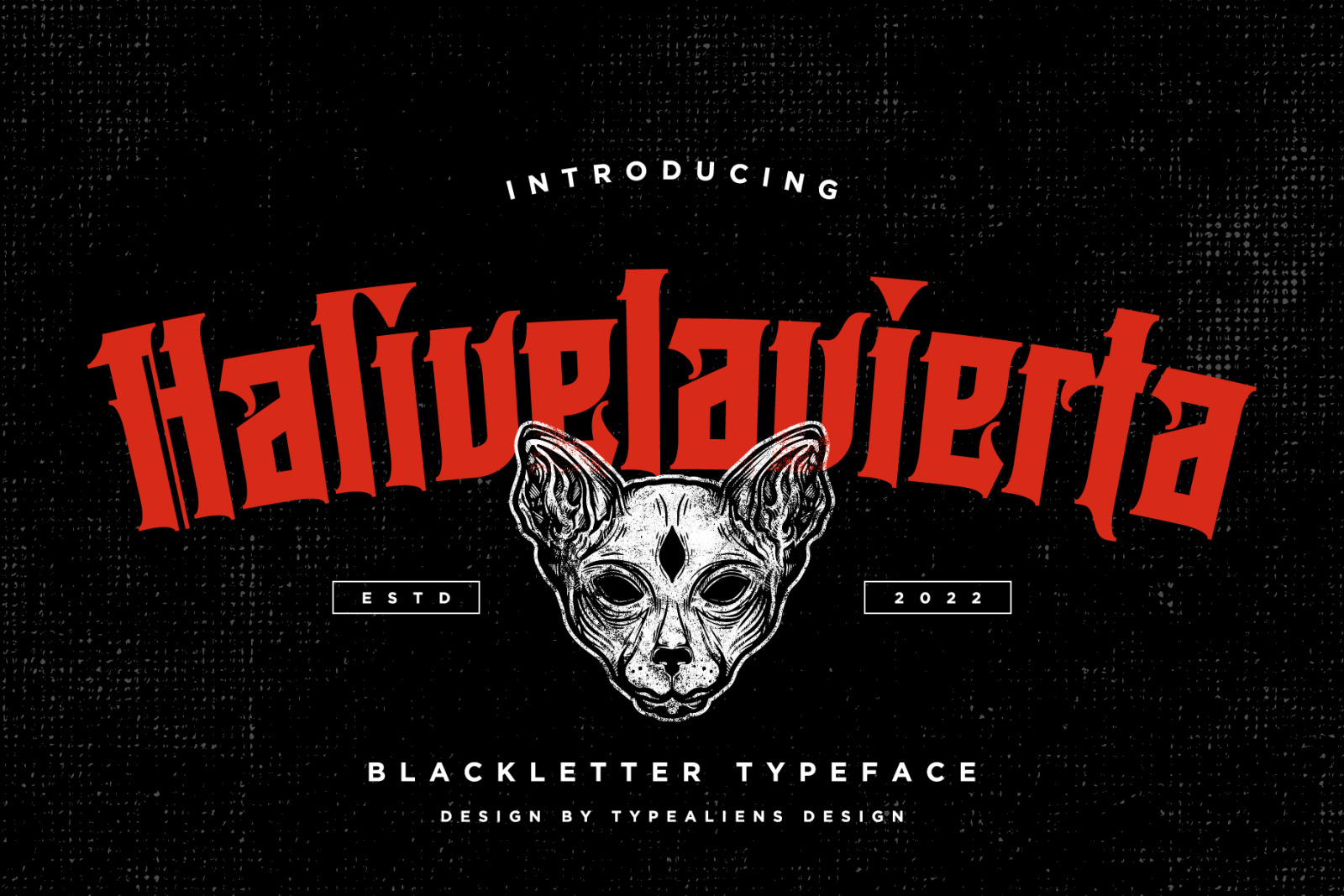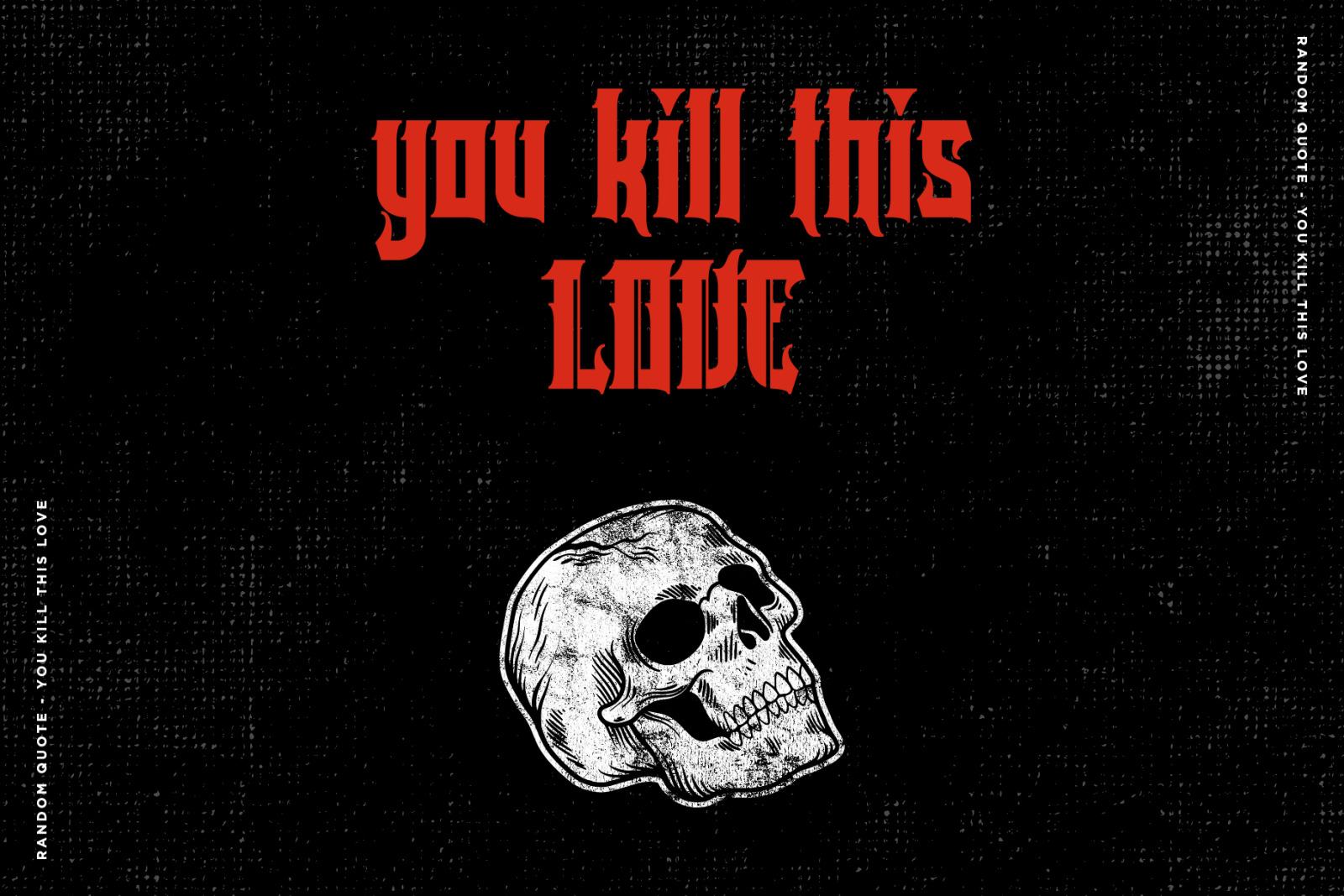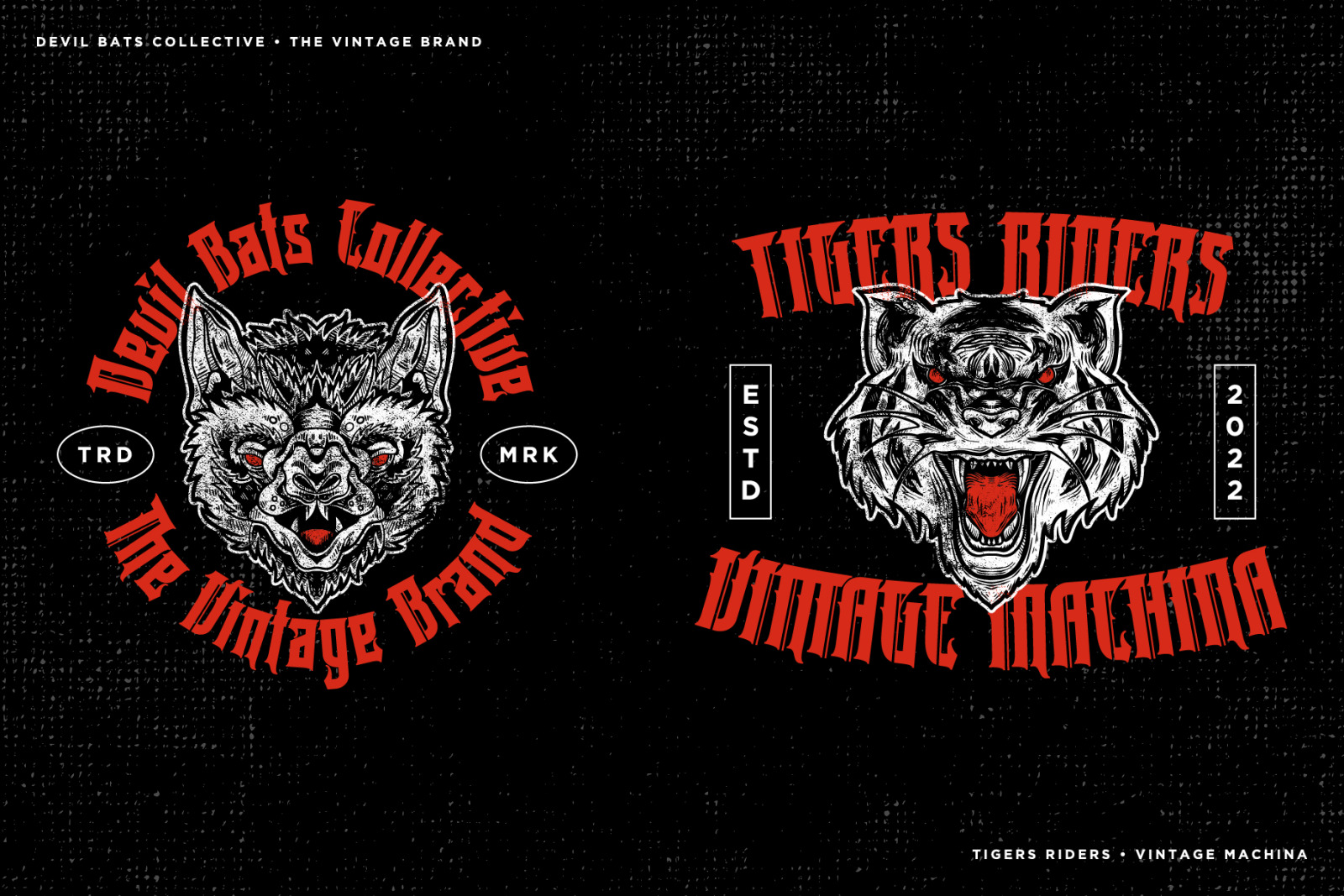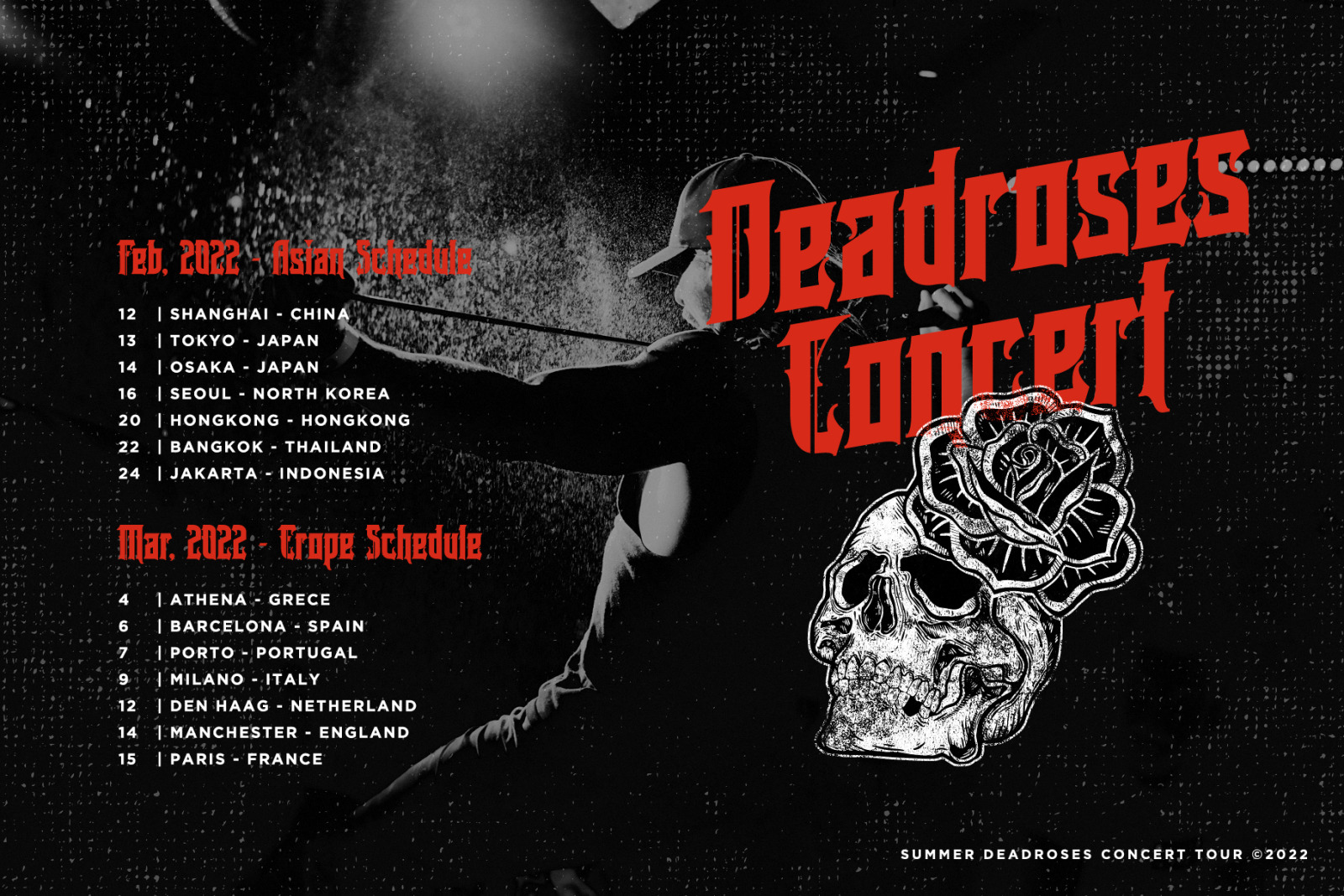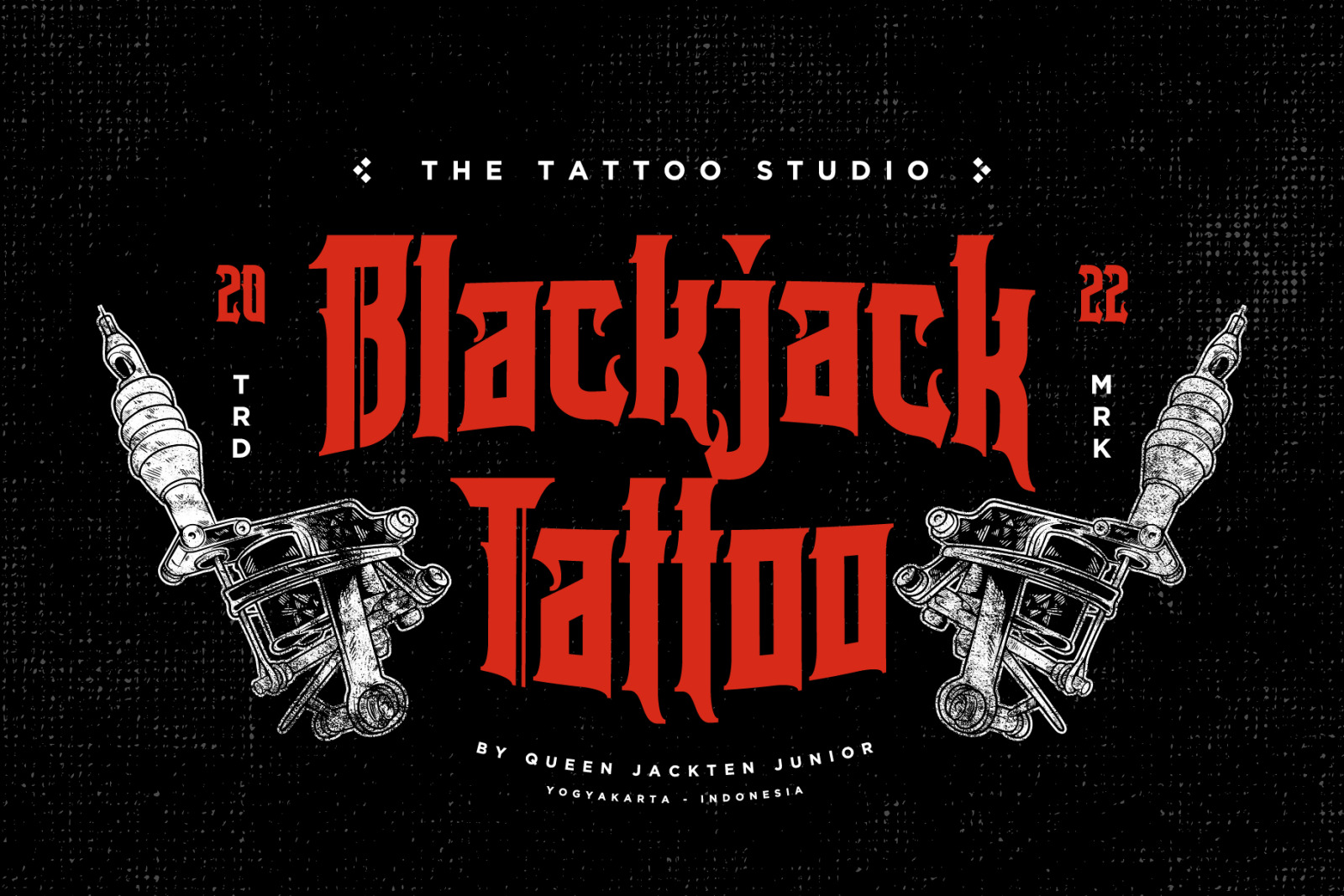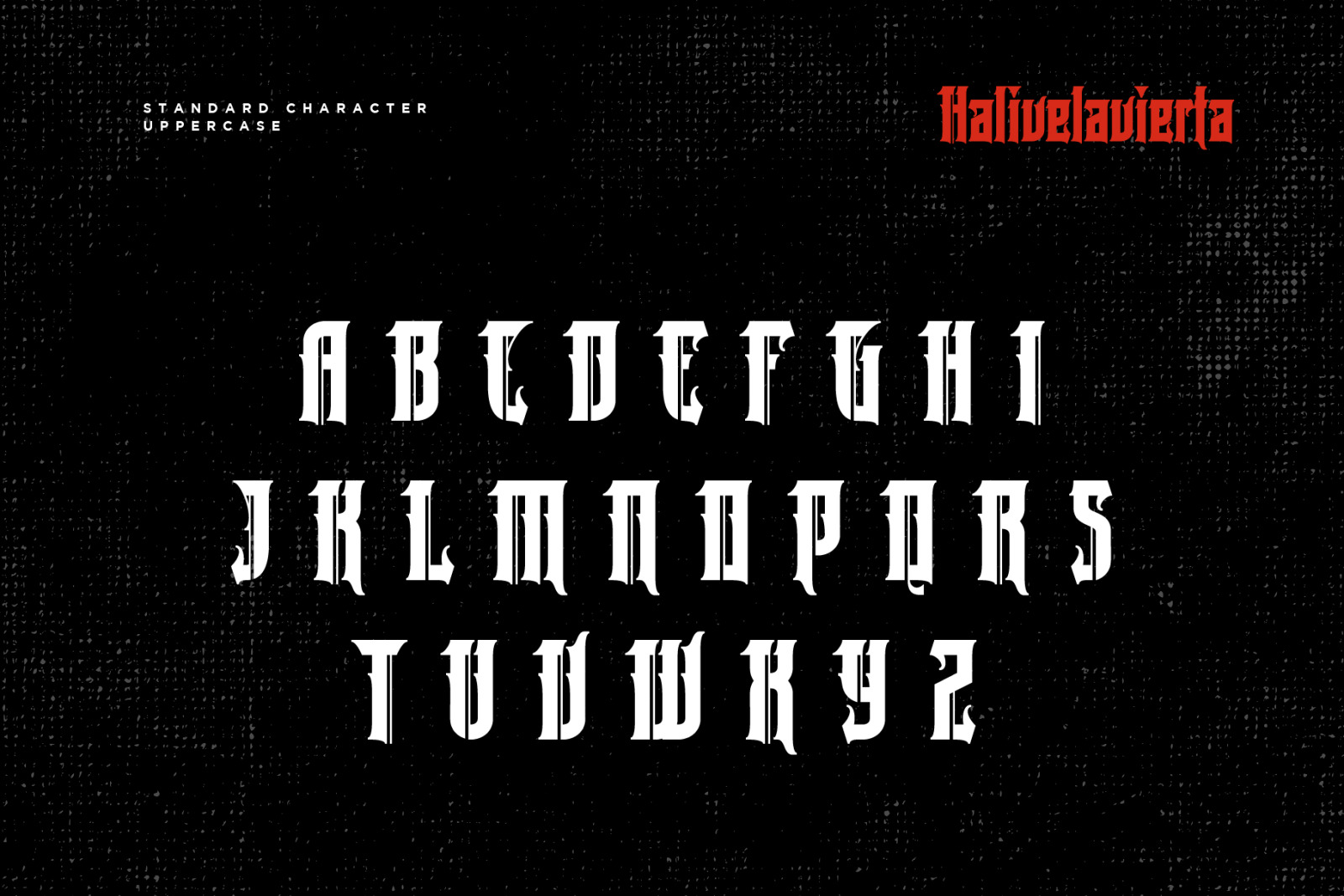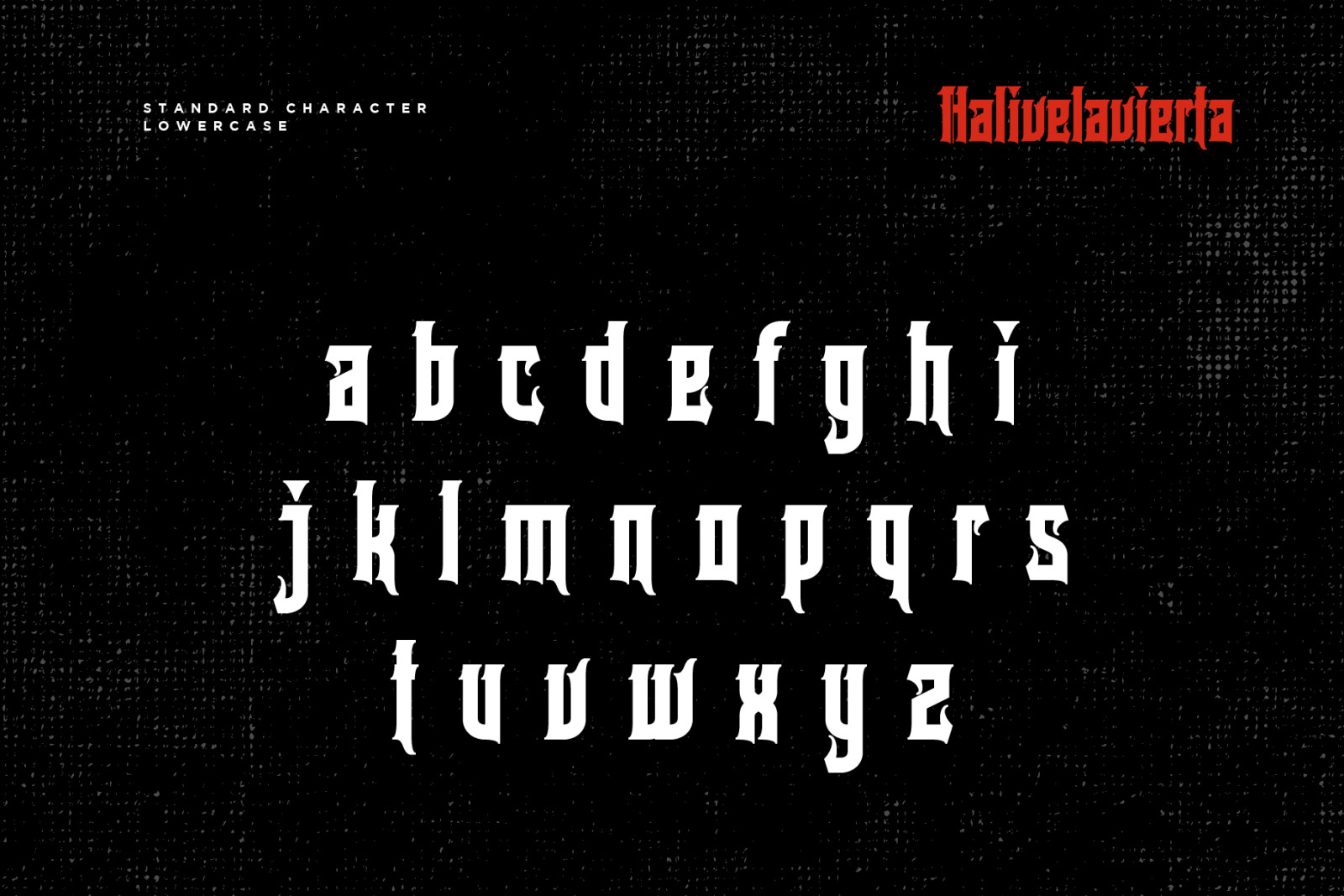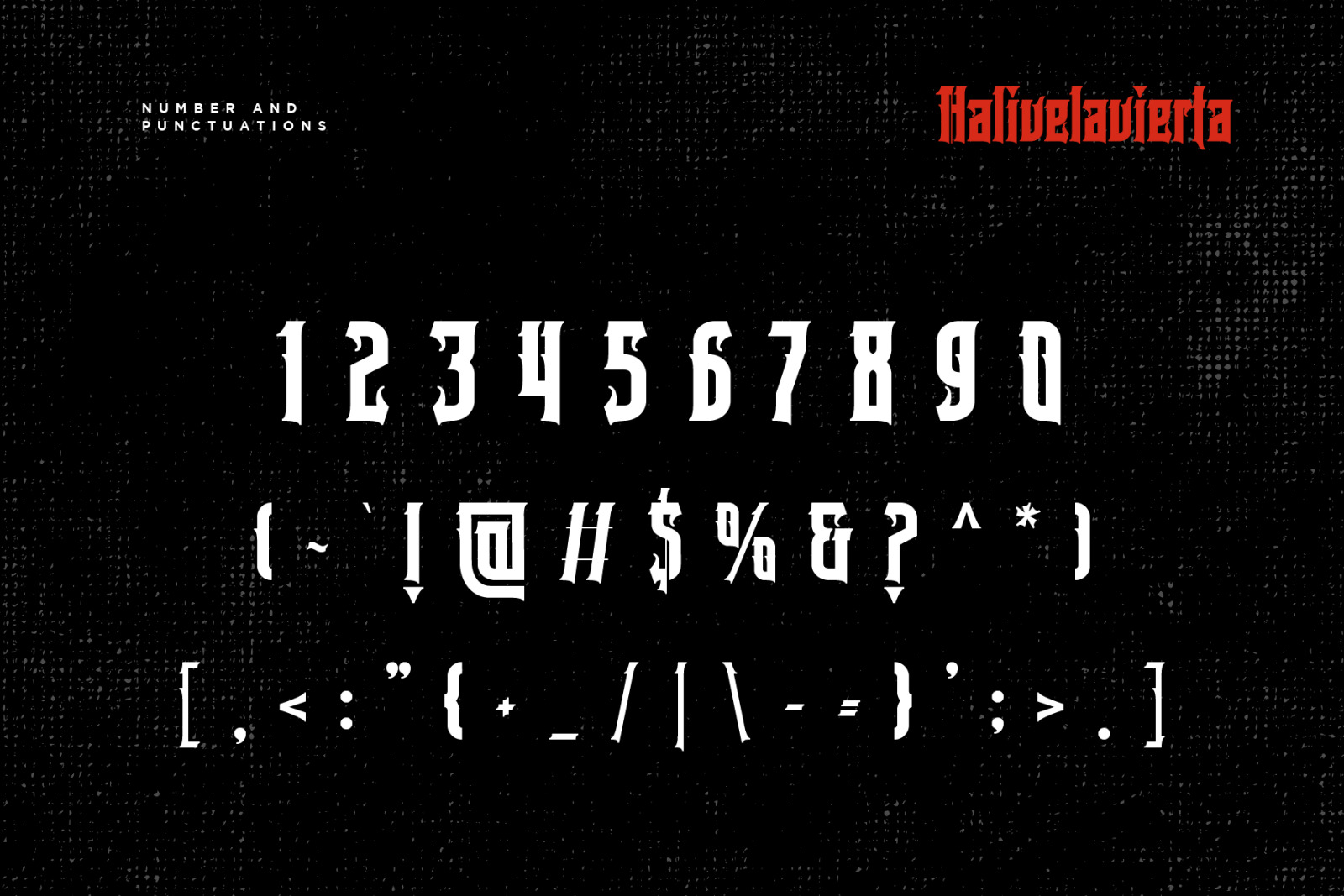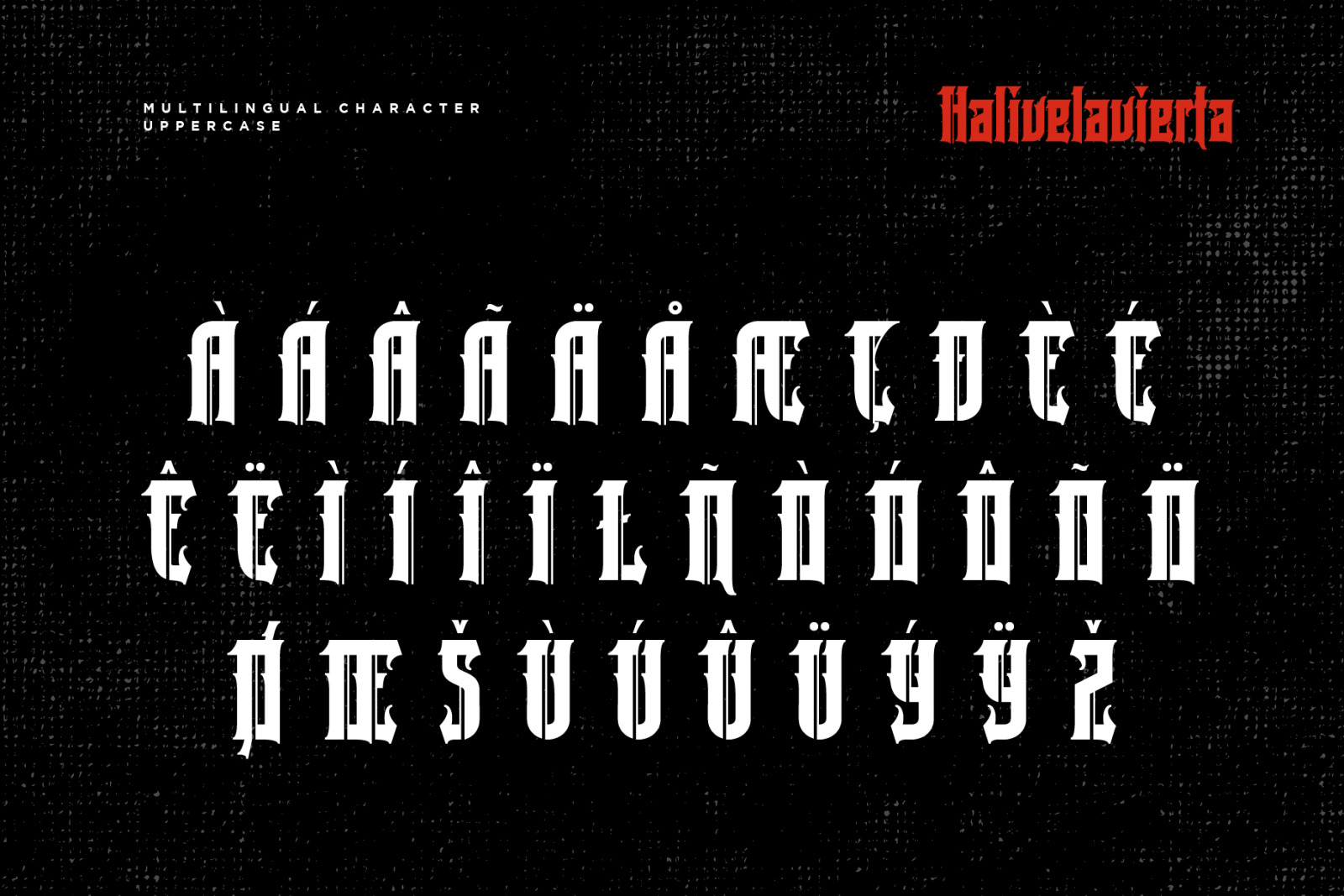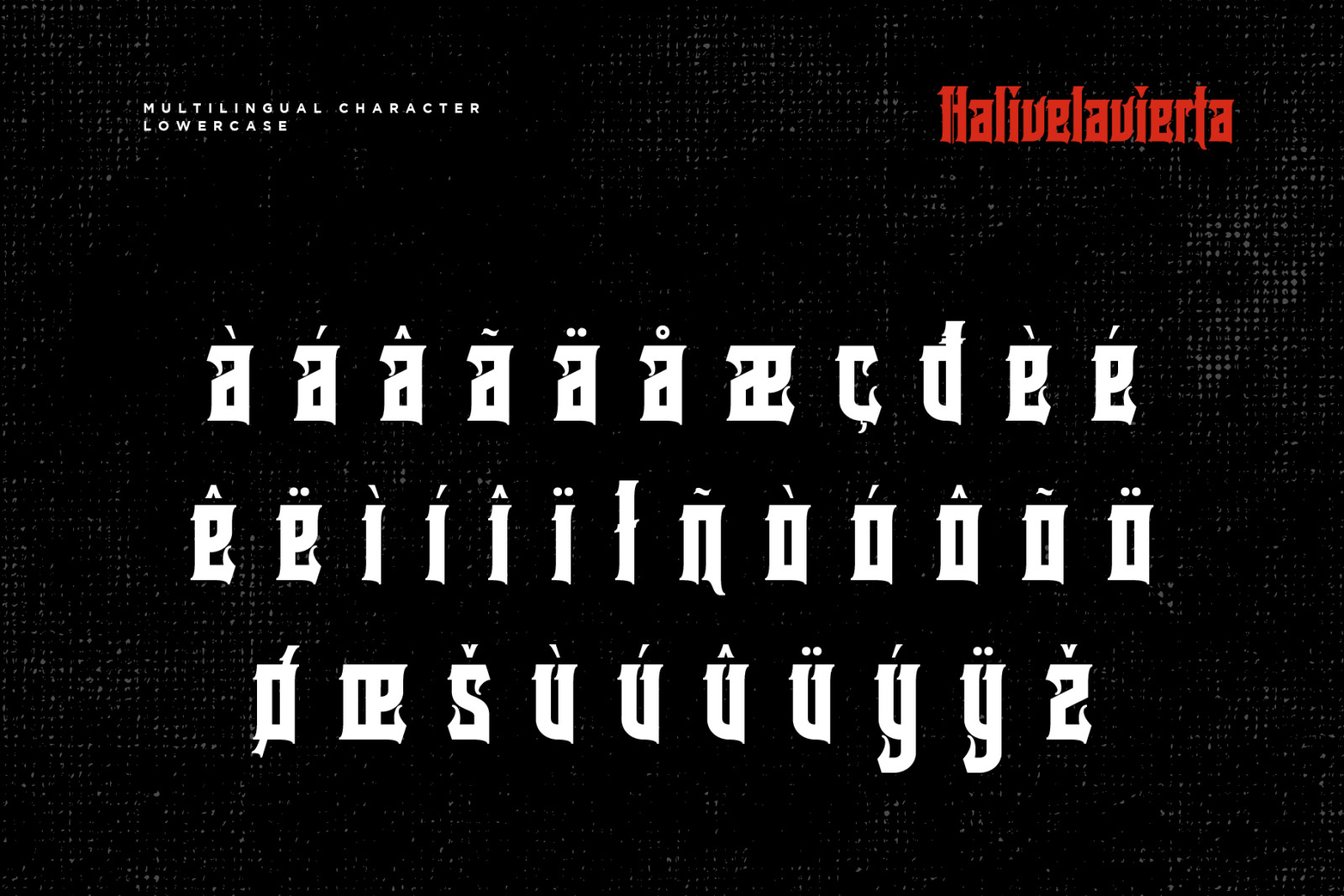
Halivelavierta Font
HALIVELAVIERTA is a combination font between blackletter and serif, but I included it in the blackletter category because of the boldness and spacing that is close to a blackletter font, resulting in a font with a slightly gothic feel, vintage but also suitable for modern designs.